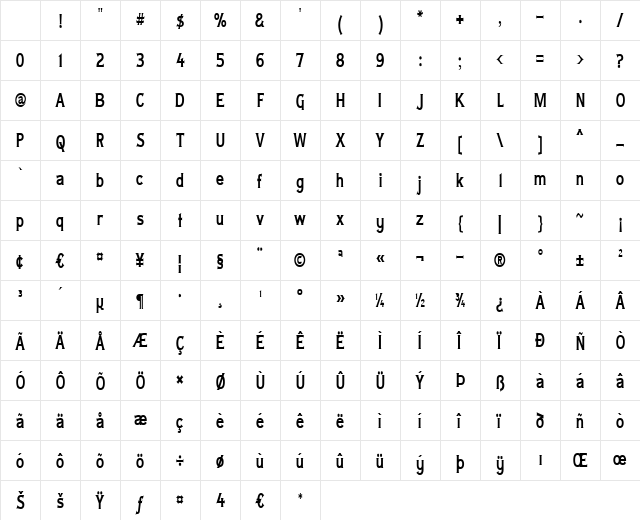
Lady Copra Narrow Regular
Designer: Graham Meade
Design Context for Lady Copra Narrow
Lady Copra Narrow is a composed and adaptable typeface that performs quietly and consistently across a wide range of design contexts. Its narrow stance lets it pack a punch even in space-constrained designs.